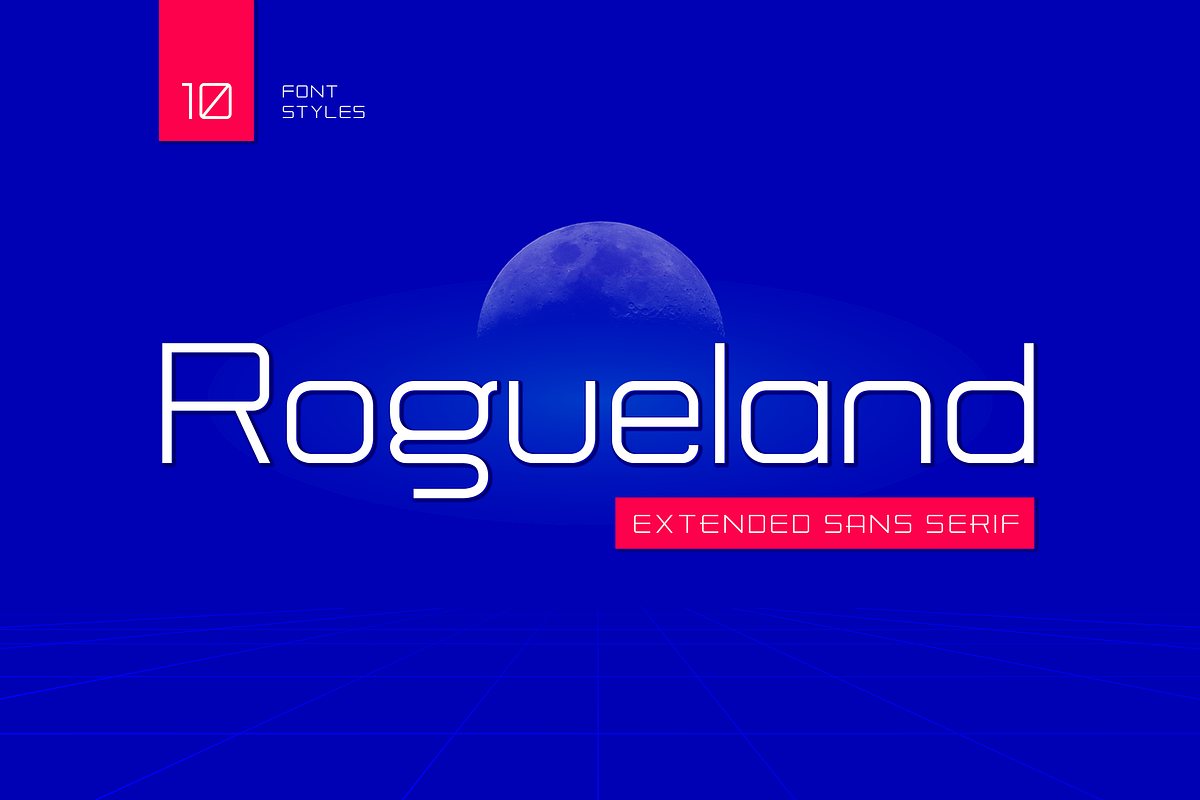
NCS Rogueland
NCS Rogueland is Modern extended sans serif font that is out of this world. A strong balance between pointed corners and smooth curves with luxurious styles. Perfect for all purposes but especially for headlines. With 10 Variant to choose :
- NCS Rogueland Light
- NCS Rogueland Light Italic
- NCS Rogueland Light Rounded
- NCS Rogueland Regular
- NCS Rogueland Italic
- NCS Rogueland Rounded
- NCS Rogueland Outline
- NCS Rogueland Bold
- NCS Rogueland Bold Italic
- NCS Rogueland Bold Rounded
Include uppercase, lowecase, numeral and punctuation. This font also includes alternative glyphs, ligatures and multilingual support.